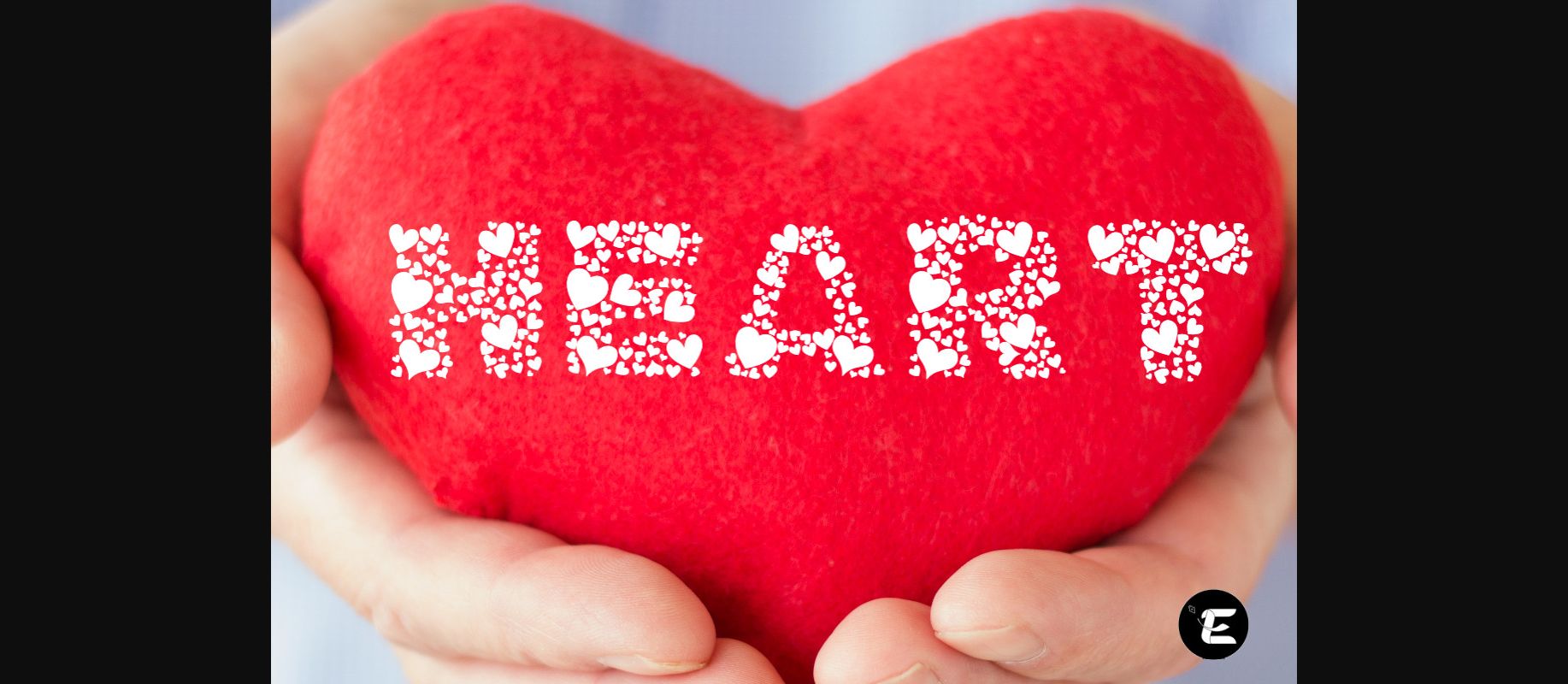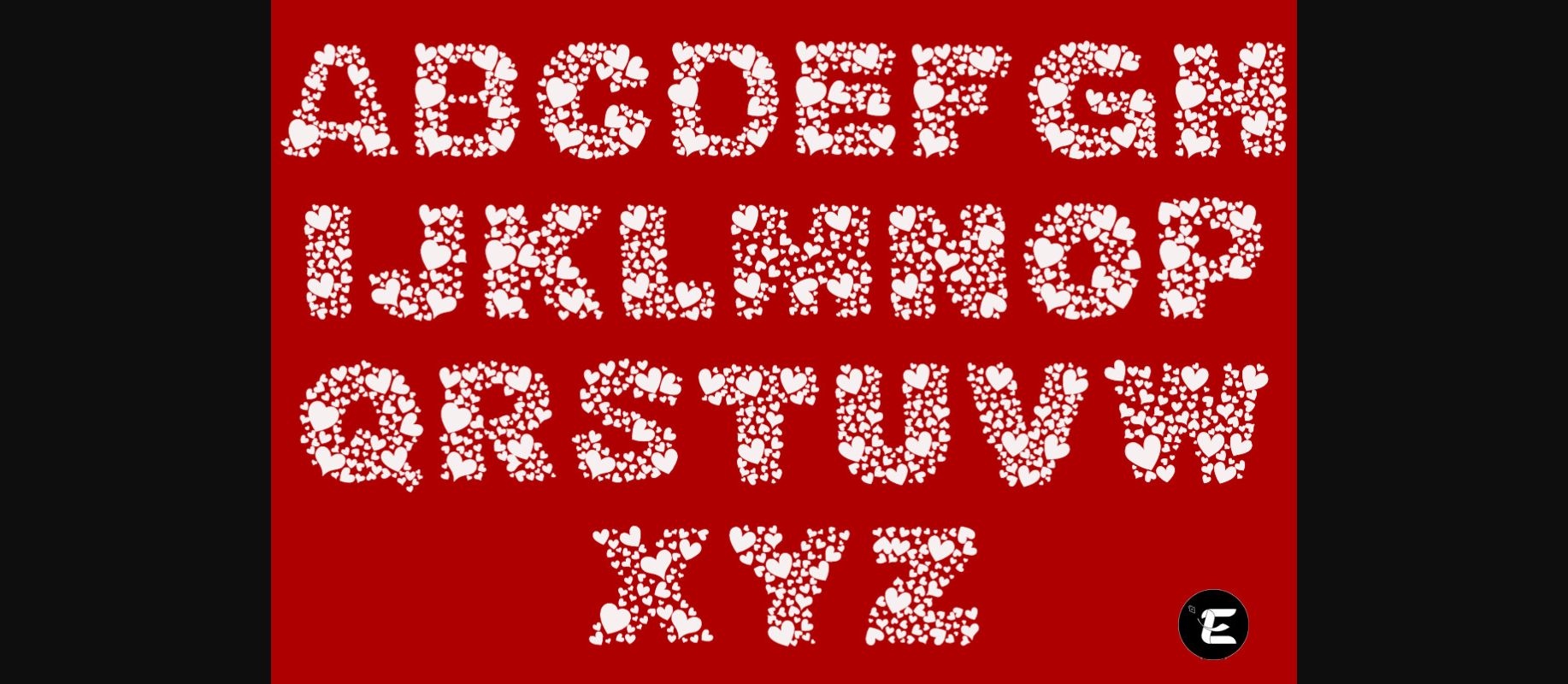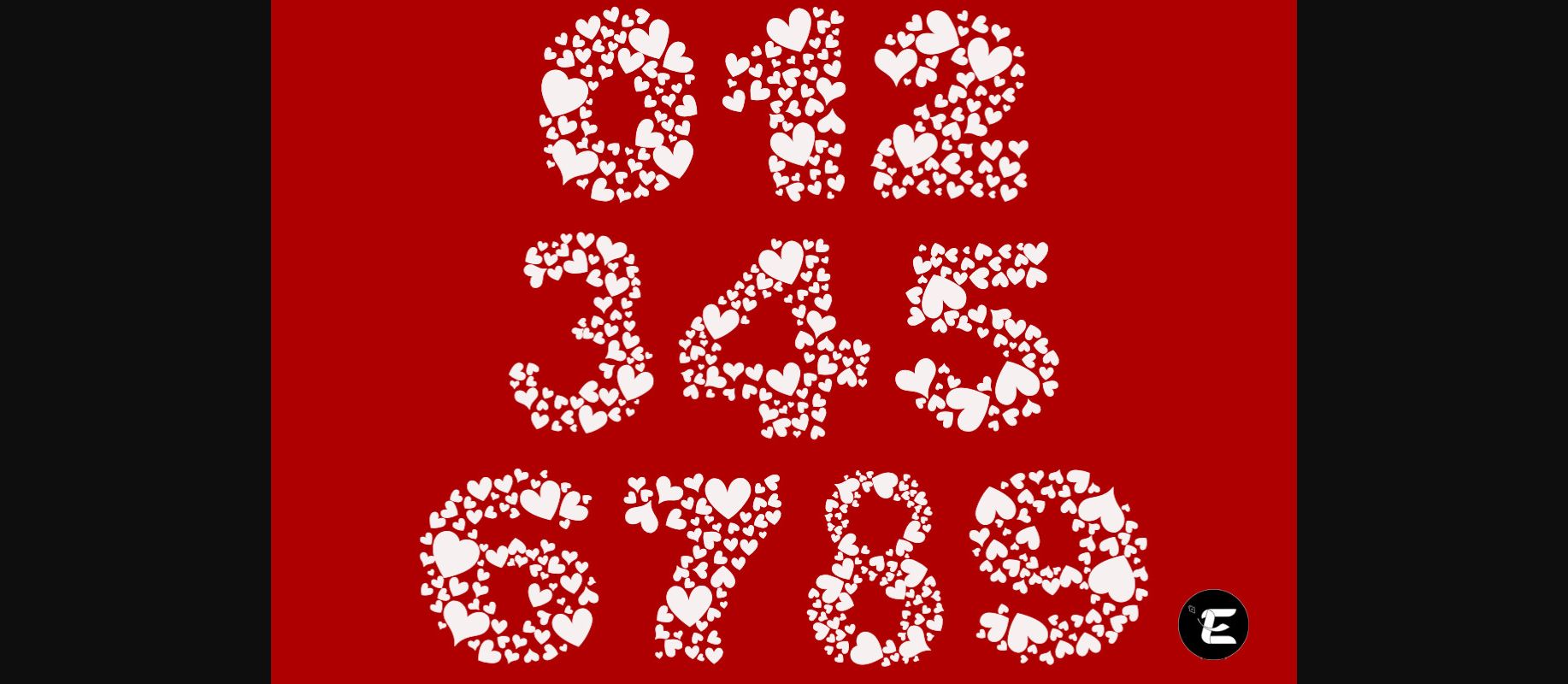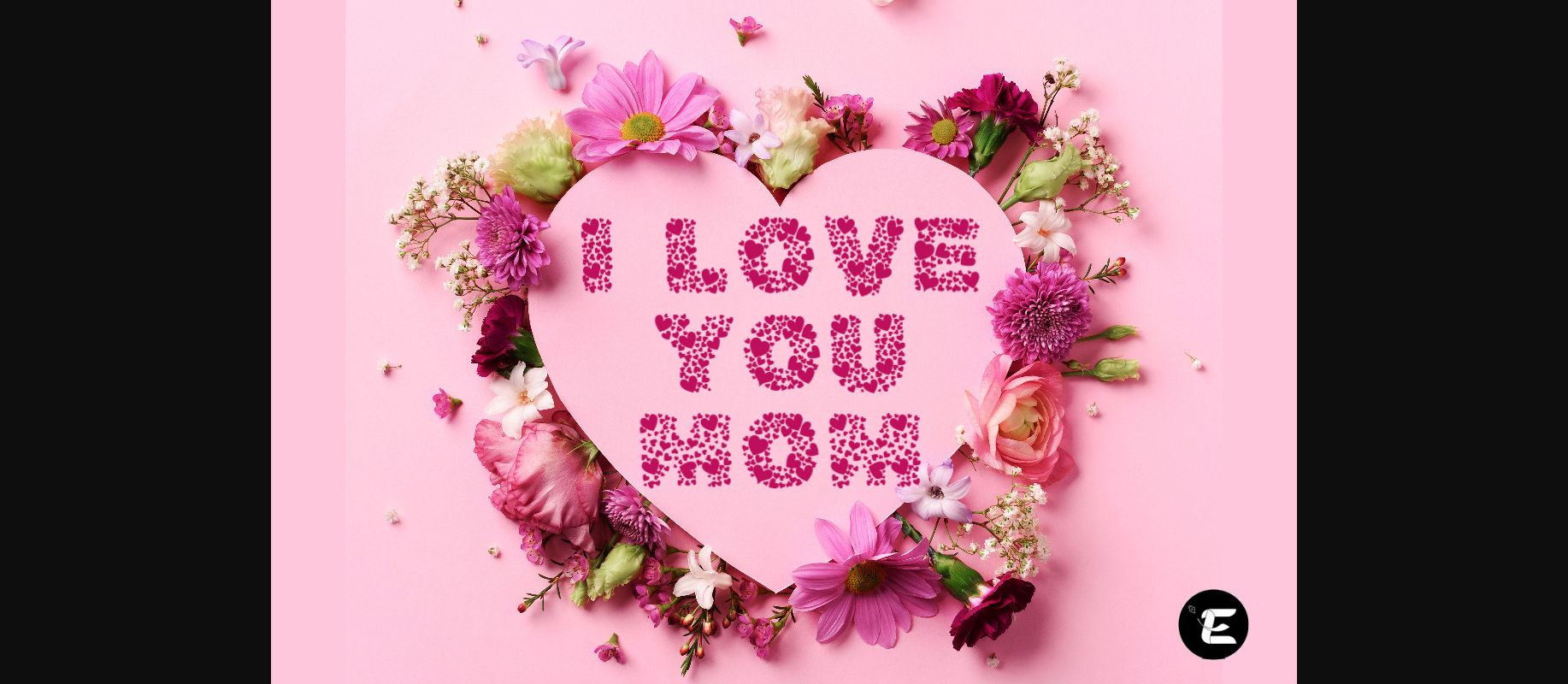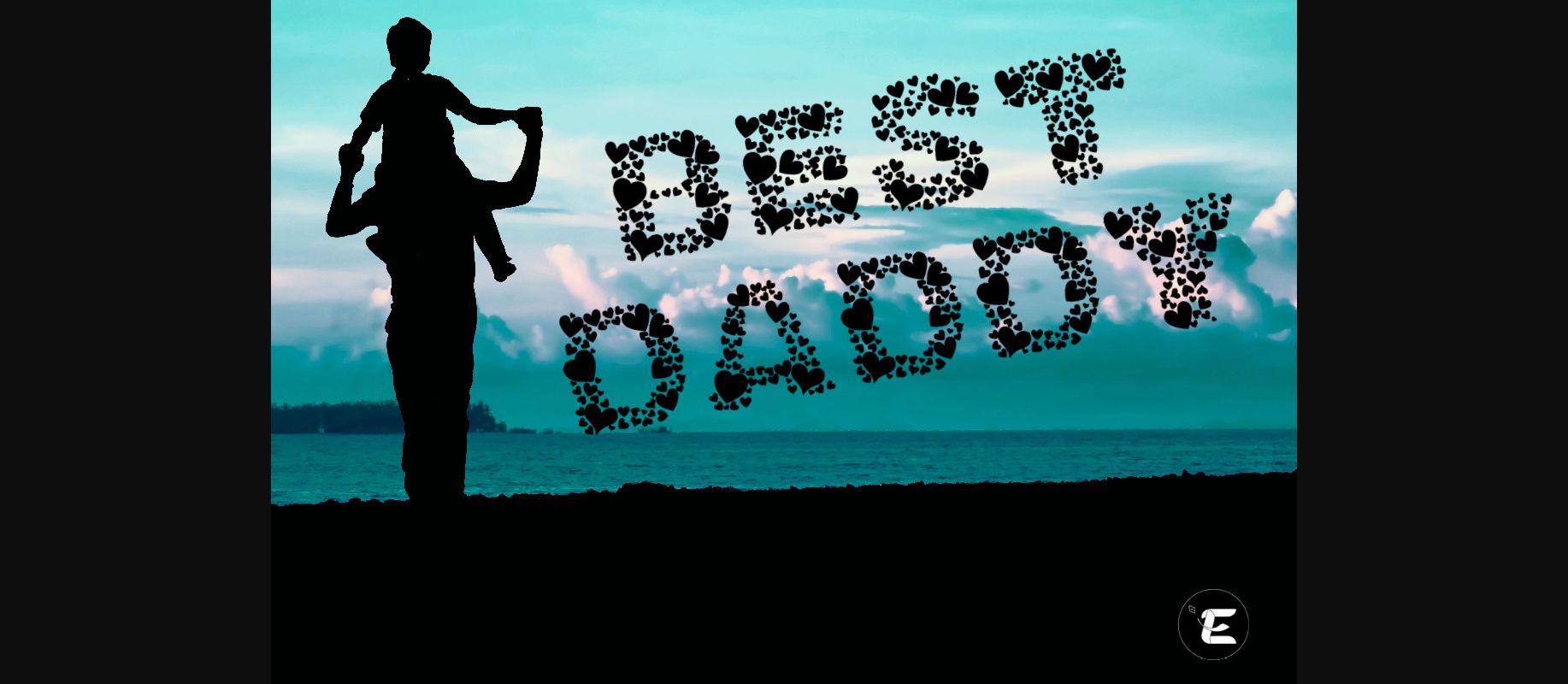
About Heart Font
Heart is a sweet, festive, and warm decorative font. Whether you’re using it for crafts, digital design, presentations, or greeting cards, this font has the potential to become your favorite go-to font, no matter the occasion!